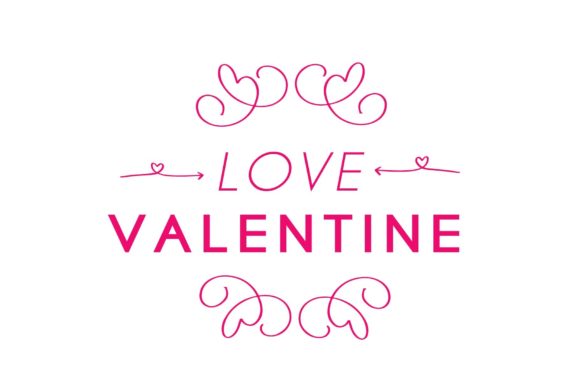
Dingbats Love Swirl Font: The Ultimate Design Companion for Crafters and Designers
Are you a designer, crafter, or DIY enthusiast looking for a unique and versatile font to elevate your creative projects? Look no further than Dingbats Love Swirl Font! This beautiful and useful dingbats font is perfect for a wide range of applications, from crafting and digital designing to presentations and greeting cards making.
What is Dingbats Love Swirl Font?
Dingbats Love Swirl Font is a specially designed dingbats font that features a collection of swirly, curly, and lovable symbols. The font is made up of a wide range of characters, including hearts, stars, flowers, and other decorative elements that can add a touch of personality and whimsy to any design project.
Key Features of Dingbats Love Swirl Font
So, what makes Dingbats Love Swirl Font so special? Here are just a few of its key features:
- Unique and Versatile: With its wide range of characters and symbols, Dingbats Love Swirl Font is perfect for a variety of design projects, from crafting and DIY to digital designing and presentations.
- Scalable: Dingbats Love Swirl Font is scalable to any size, making it perfect for use in a variety of applications, from small greeting cards to large banners and signs.
Uses for Dingbats Love Swirl Font
So, what can you use Dingbats Love Swirl Font for? The possibilities are endless! Here are just a few ideas to get you started:
- Crafting: Use Dingbats Love Swirl Font to add a personal touch to your scrapbooking, card making, and other crafting projects.
- Digital Designing: Add a touch of whimsy to your digital designs, including social media graphics, blog posts, and website headers.
- Presentations: Use Dingbats Love Swirl Font to add visual interest to your presentations, including slides, handouts, and other materials.
- Greeting Cards: Create beautiful and unique greeting cards for special occasions, including birthdays, holidays, and weddings.
Tips for Using Dingbats Love Swirl Font
Here are a few tips for getting the most out of Dingbats Love Swirl Font:
- Experiment with Different Sizes: Try using Dingbats Love Swirl Font in different sizes to add visual interest to your designs.
- Combine with Other Fonts: Combine Dingbats Love Swirl Font with other fonts to create a unique and eye-catching design.
- Use in Combination with Images: Use Dingbats Love Swirl Font in combination with images to add a touch of personality to your designs.
Dingbats Love Swirl Font is a beautiful and useful dingbats font that is perfect for designers, crafters, and DIY enthusiasts. With its wide range of characters and symbols, ease of use, and scalability, it’s the perfect addition to any design project. Whether you’re creating greeting cards, digital designs, or presentations, Dingbats Love Swirl Font is sure to add a touch of personality and whimsy. So why wait? Download Dingbats Love Swirl Font today and start creating!